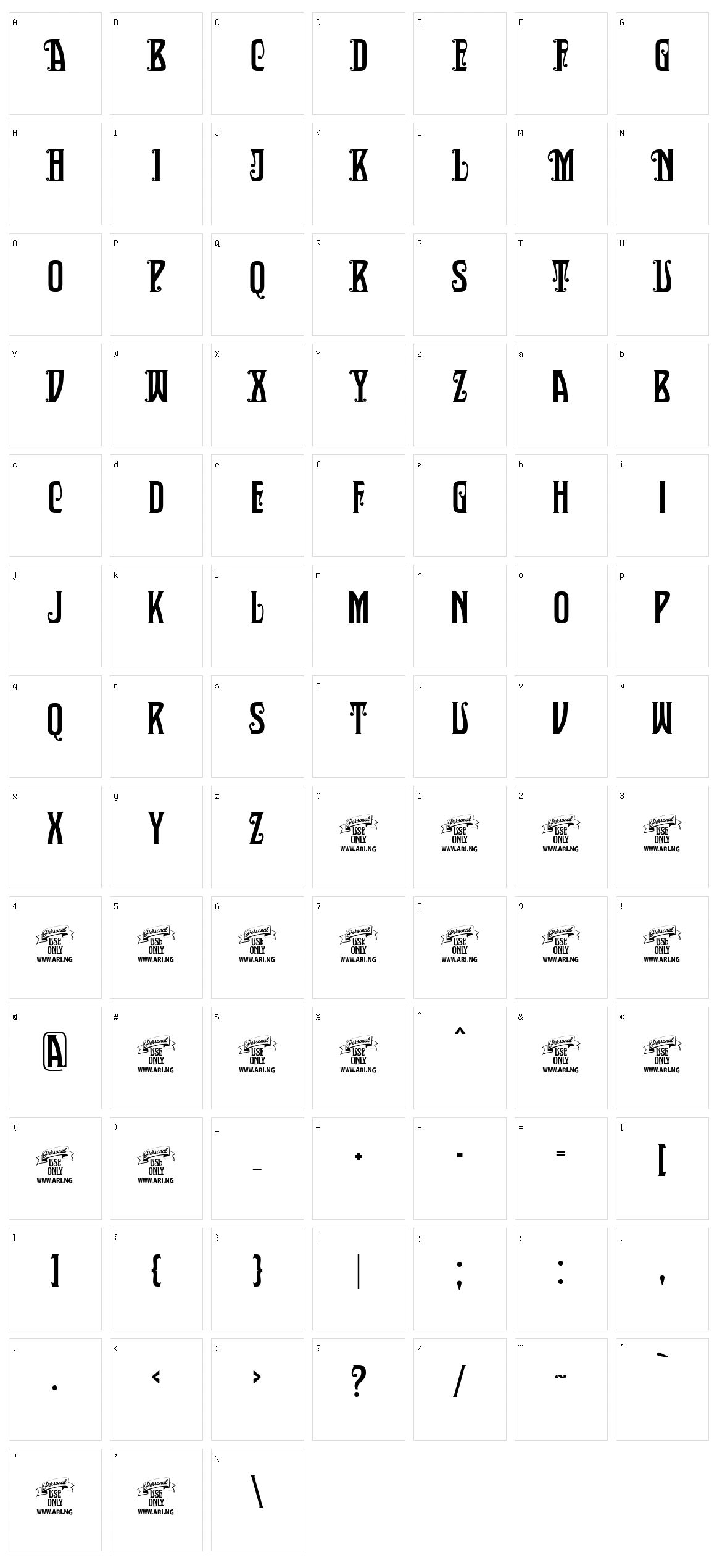
The free font Sultan Cafe is carefully designed by Mans Greback, showcasing a thoughtful balance of creativity and usability and falls under the Retro font style. When you download the ZIP file, it contains only 1406.77 KB of font files, making it lightweight and quick to download. Please review the license details below to understand permitted usage and distribution rights. If license information is not available, we recommend using this font for personal projects only or contacting the author directly for commercial usage permissions.